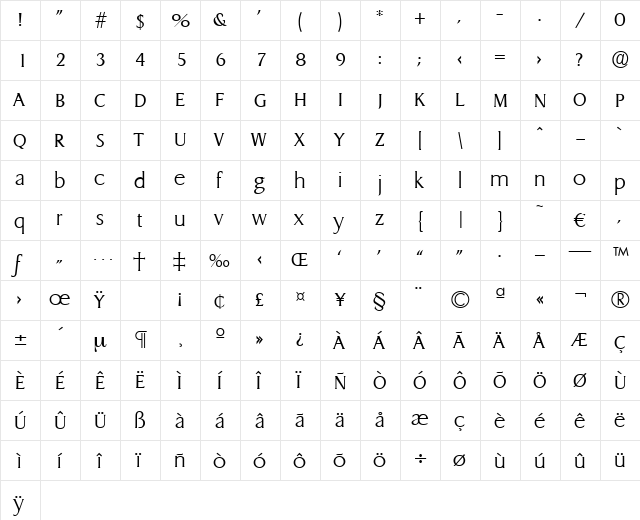
Dragon-Xlight Regular
Design Context for Dragon-Xlight Typeface
Dragon-Xlight takes a measured approach to typography — its balanced proportions and neutral character make it a reliable workhorse for both digital and print work. The delicate stroke weight brings airiness and refinement to layouts.